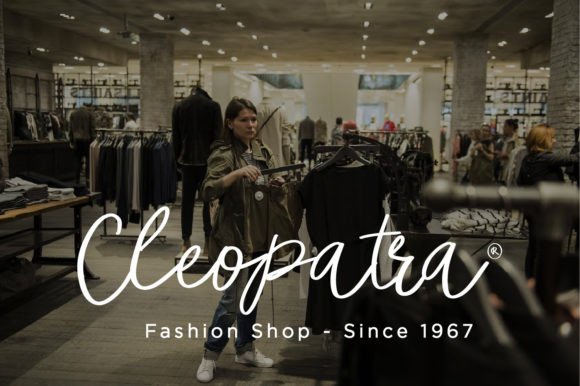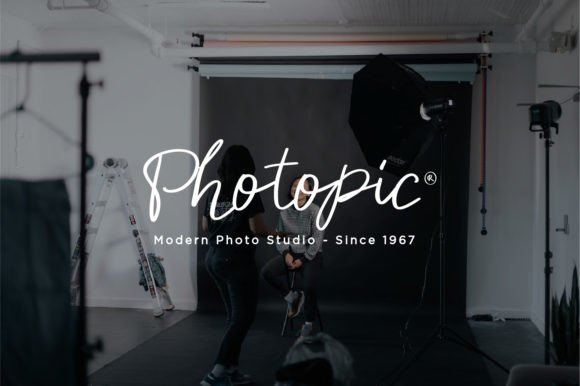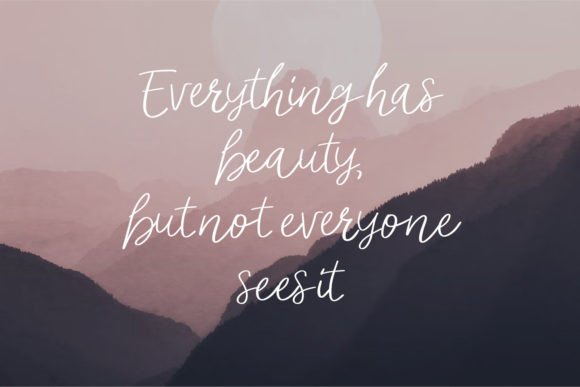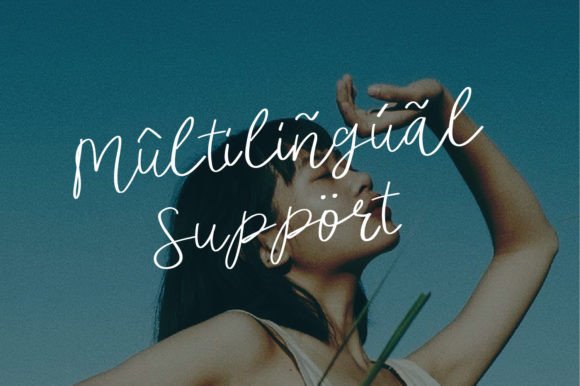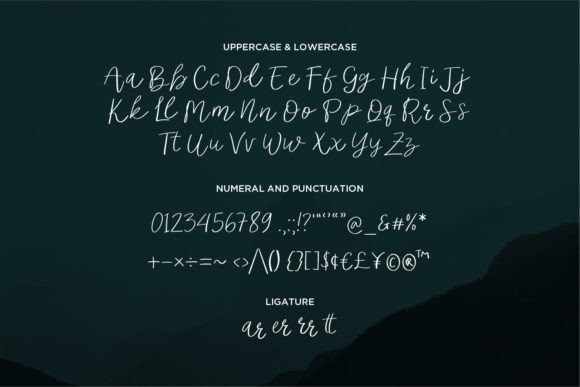
Introduction to Noerdick Font Font
Fonts play a crucial role in design, and the Noerdick Font font is a typeface that brings both character and versatility to any project. Whether you’re working on a branding project, a website, or a print design, the Noerdick Font font offers a unique style that can elevate your work.
Noerdick is a modern handwritten script font that exudes style and creativity.
Its fluid strokes and contemporary letterforms give your designs a fresh and personal touch Perfect for logos, branding, and social media posts, Noerdick adds a sense of authenticity and charm.
Key Features of Noerdick Font Font
Why Choose Noerdick Font Font?
The Noerdick Font font is more than just a typeface – it’s a design tool that helps you communicate your message with style and clarity. Its unique character set and versatile design make it suitable for a wide range of applications, from elegant invitations to bold headlines.
With its carefully crafted letterforms and balanced proportions, the Noerdick Font font ensures readability and visual appeal across all mediums.
What makes Noerdick Font font special?
The Noerdick Font font stands out with its unique design, exceptional readability, and versatility across various design applications.